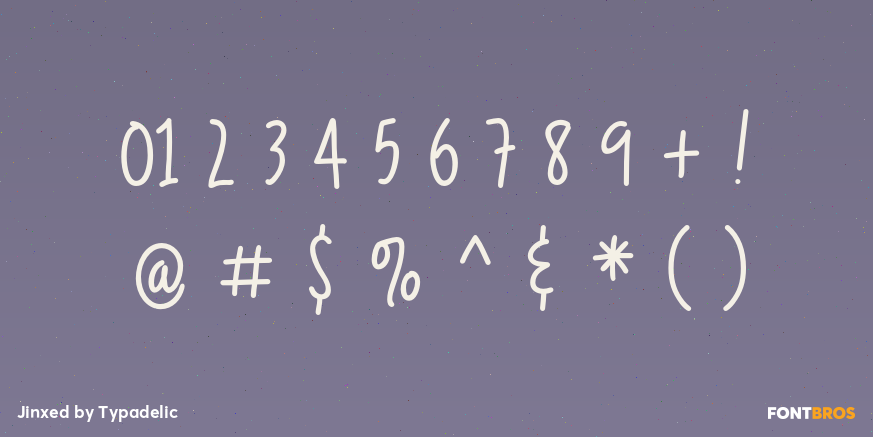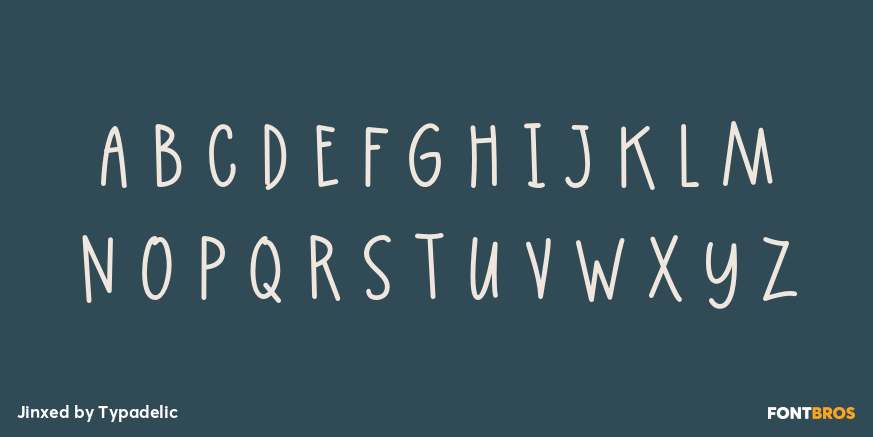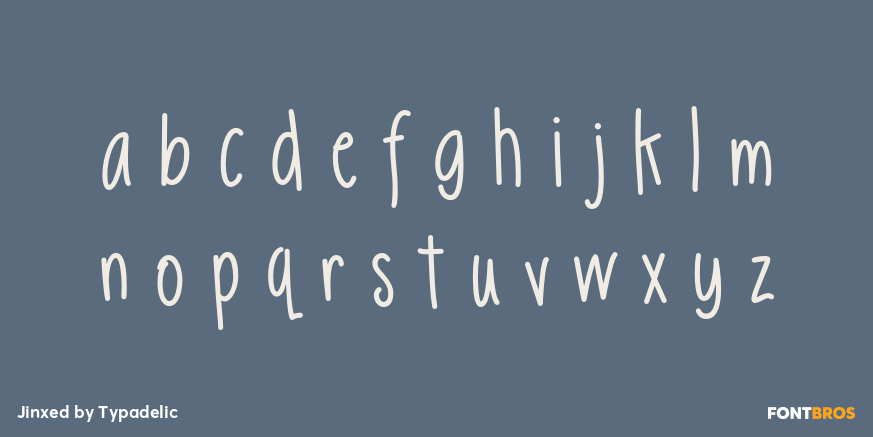
Jinxed
Font Family by Typadelic
Jinxed is a casual little typeface with some unique letter shapes. Use Jinxed Boxed Caps in combination with Jinxed for a fun look.